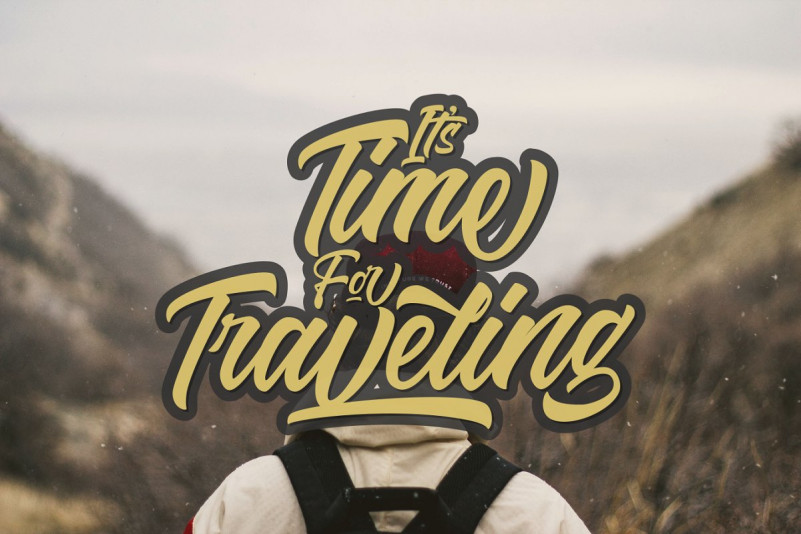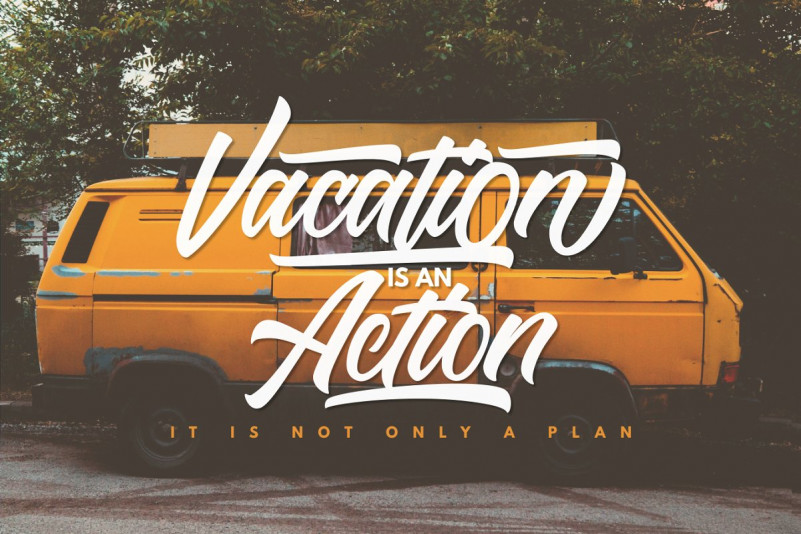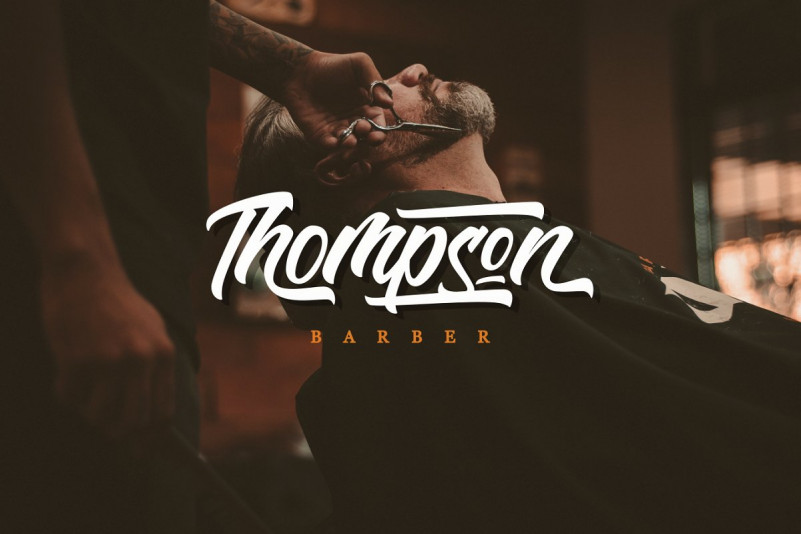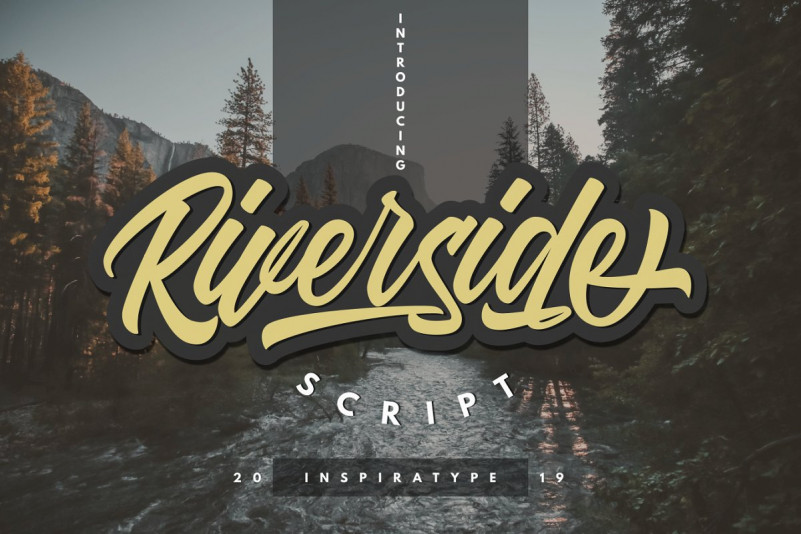
Riverside Script Font
The New Script typeface called Riverside Font. “Riverside” is a display typeface that is made by hand, inspired by classic posters. Comes with uppercase, lowercase, numerals, punctuations and so many variations on each character include OpenType alternates, common ligatures and also additional swash to let you customize your designs. Perfect to use for Logotype, Letterhead, Poster, Apparel Design, Label and etc.